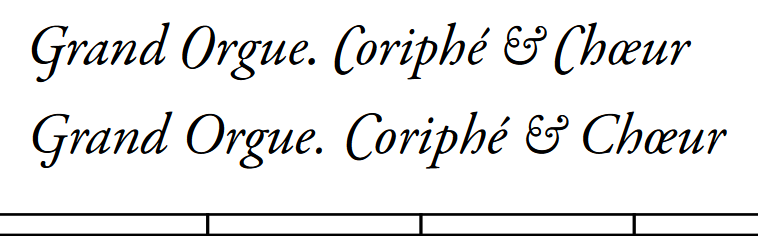
I appreciate the newly added OpenType features in Dorico 6, but I was wondering however if it is possible to have different OpenType setting, not on a per paragraph level, but for individual letters within a paragraph or even better a selection of text, etc.
For a bit of context, my usual go to font is Adobe Garamond Pro, typically I make the first capital letter of a paragraph, or (as someone who engraves mostly organ music) the first capital of manual or stop indications a swash capital. With Adobe Garamond Pro, doing this so far isn’t very complicated, but it is somewhat tedious since it involves a lot of copy/paste from my list of swash/alternate characters. I want to use Garamond Premier Pro which has a lot more OpenType features than Adobe Garamond Pro which I can now (sort of) take advantage of in Dorico, but so far it seems I can only set Swash capitals for the entire paragraph style, not just for the specific places I need them. Here’s some examples of what I mean.
The first one is with Garamond Premier Pro, I cannot make specific capitals the alternate/Swash versions, it seems to be all or nothing. The swash/alternate forms are outside of the Unicode range from what I can tell so I cannot just simply copy/paste these, they have to be enabled within Dorico.
The second one is using Adobe Garamond Pro, this is the sort of thing what I am hoping to be able to do (except do it with Garamond Premier or any other OpenType font through Dorio’s OpenType features, not by copy/paste), with Garamond Pro I can control exactly which letters use or do not use alternate forms since everything is within the Unicode range so I can just copy/paste (and this does not just apply only to Swash capitals).
Per page 30 of the Version History, you create a Character Style (from Library > Character Styles) that has the relevant OpenType features ticked at the bottom. Then you select the specific text you want to modify - within a paragraph - and set your custom Character Style from the top left corner of the text editing thingy.